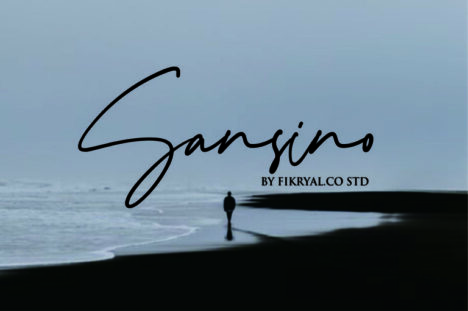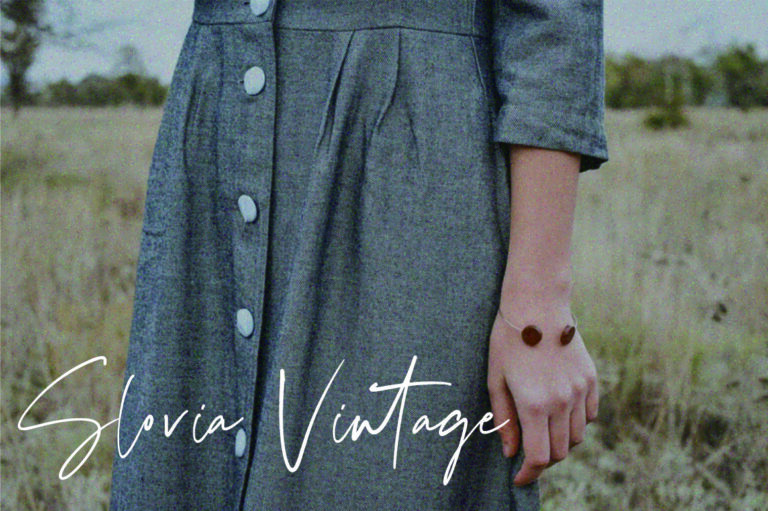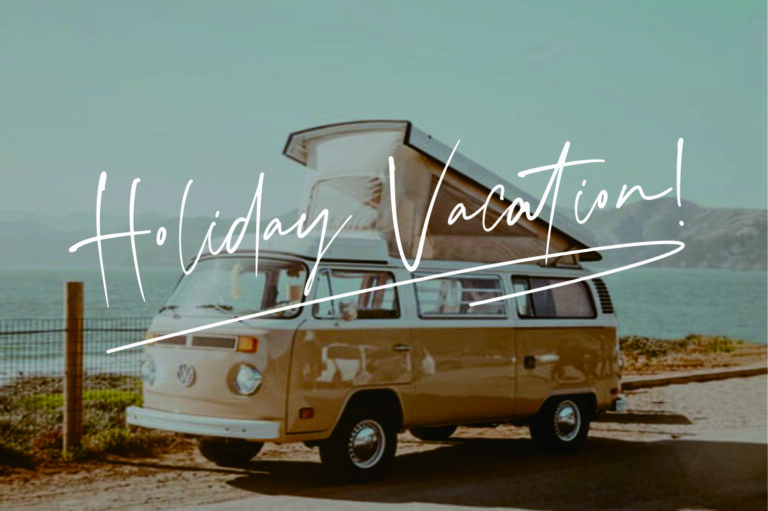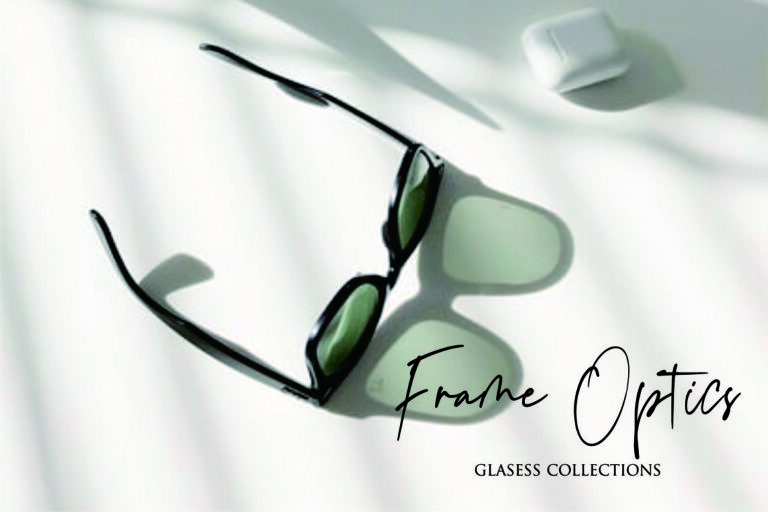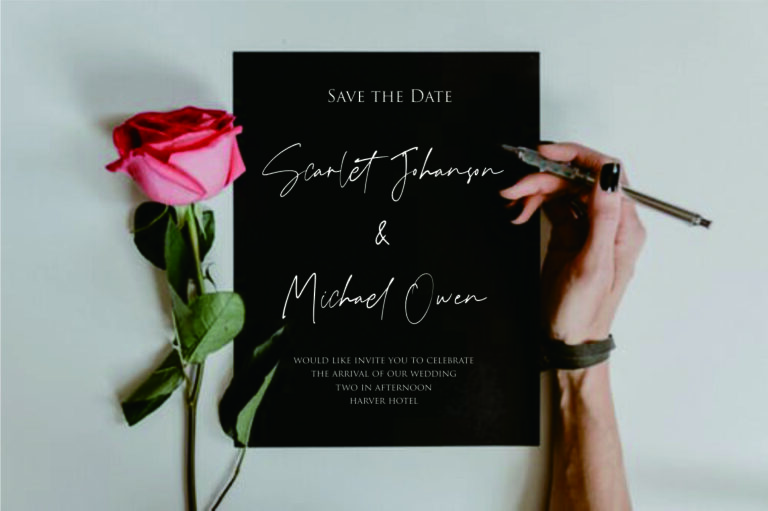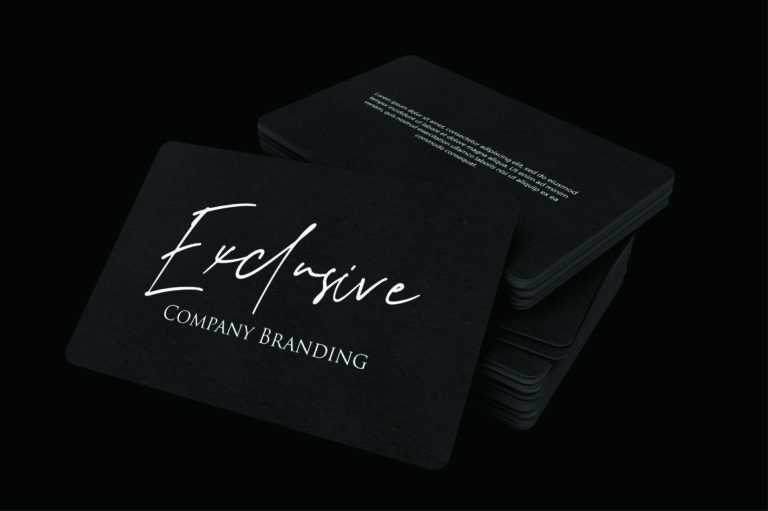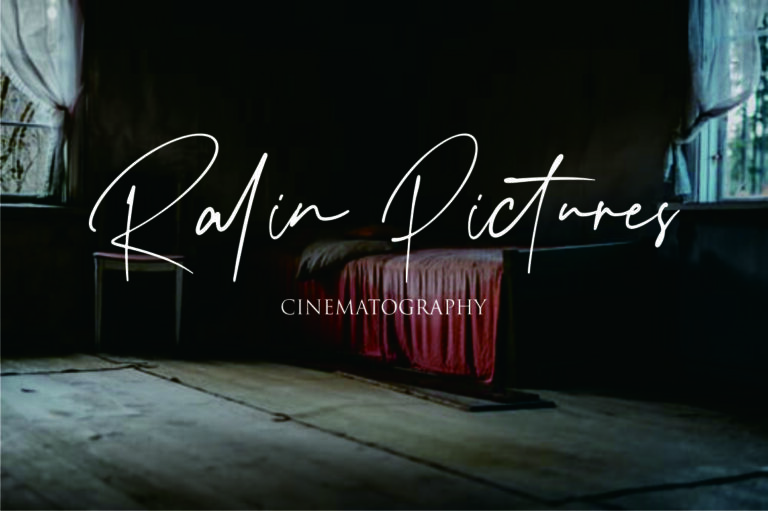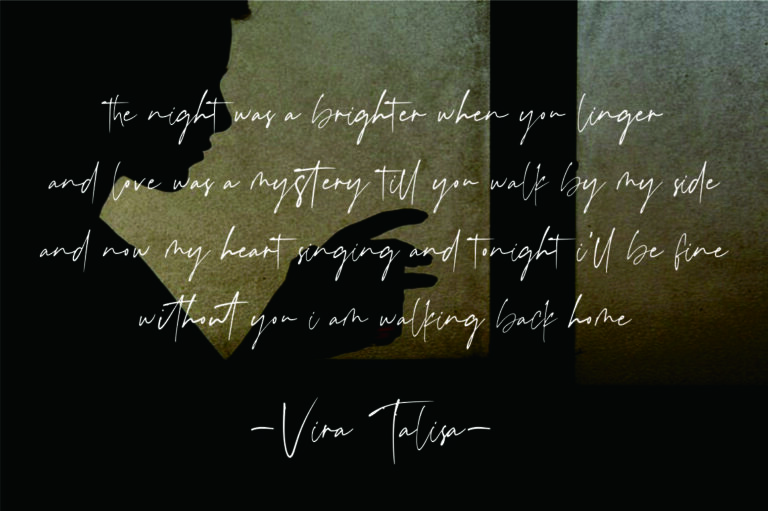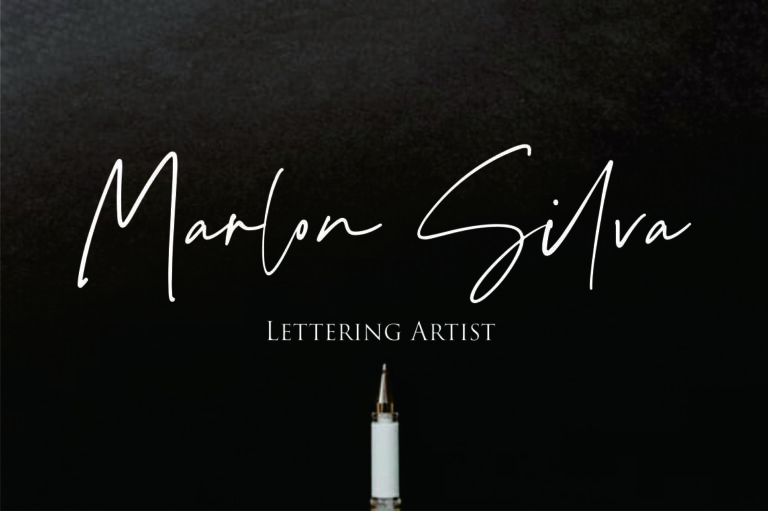
Sansino - Handwritten Script Font
Sansino – Font is a new stylish script font. It’s perfect for logo,branding, tittle, social media posts, advertisements, product packaging, product designs, label, photography, watermark, special event,magazine,web design,etc. If you have any questions please don’t hesitate to contact me.